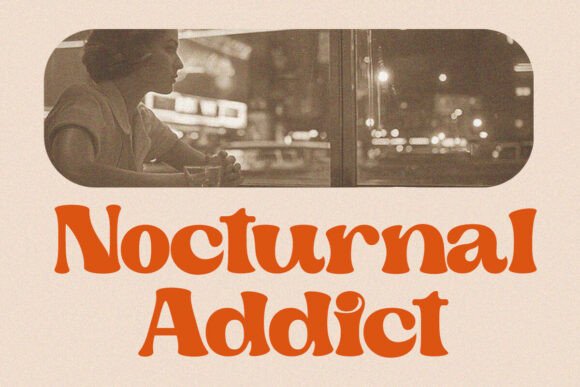
Introducing Chill Reality Font: The Ultimate Playful Display Serif
In the world of typography, fonts play a crucial role in conveying messages, evoking emotions, and creating a lasting impression. If you’re looking for a font that combines modern style with playful retro influences, look no further than Chill Reality Font. This bold display serif font is designed to make a statement, with sculpted curves, exaggerated contrast, and expressive alternates that will elevate your branding, editorial headlines, poster design, packaging, and more.
What is Chill Reality Font?
Chill Reality is a bold display serif font that blends modern typography with playful retro influences, creating a unique tone that’s both stylish and approachable. With a full set of uppercase and lowercase characters, punctuation, numerals, and special glyphs, this font is ideal for a wide range of applications. Its stylistic alternates and swashes allow for custom combinations that add personality and movement to your compositions.
Key Features of Chill Reality Font
- Bold Display Serif: Chill Reality boasts a bold and eye-catching design, perfect for making a statement.
- Sculpted Curves: The font features sculpted curves that add a touch of elegance and sophistication.
- Exaggerated Contrast: The exaggerated contrast between thick and thin strokes creates a dramatic and dynamic effect.
- Expressive Alternates: The font includes a range of stylistic alternates and swashes, allowing you to add personality and movement to your text.
- Full Character Set: Chill Reality includes a full set of uppercase and lowercase characters, punctuation, numerals, and special glyphs.
What Can I Use Chill Reality Font For?
Chill Reality is a versatile font that can be used for a wide range of applications, including:
- Branding: Create a lasting impression with a bold and eye-catching logo.
- Editorial Headlines: Add a touch of style and sophistication to your magazine or newspaper headlines.
- Poster Design: Create eye-catching posters that grab attention.
- Packaging: Add a touch of elegance and sophistication to your product packaging.
Why Choose Chill Reality Font?
So why choose Chill Reality Font over other fonts? Here are just a few reasons:
- Unique Style: Chill Reality boasts a unique style that blends modern typography with playful retro influences.
- Flexibility: The font adapts well across print and digital environments, making it a versatile choice for creatives.
- High-Quality: The font is designed to deliver high-quality results, with crisp and clear lines that look great at any size.
In conclusion, Chill Reality Font is a bold and eye-catching display serif font that’s perfect for creatives seeking a typeface with flair and flexibility. With its unique style, flexibility, and ease of use, this font is ideal for a wide range of applications, from branding and editorial headlines to poster design and packaging. So why wait? Download Chill Reality Font today and bring rhythm and warmth to every word you touch.